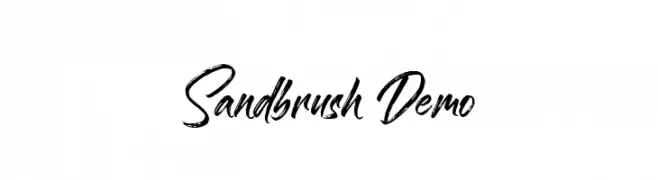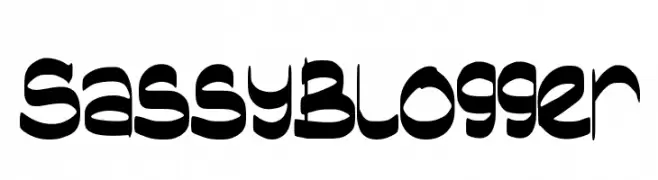
( Typia Nesia - www.myfonts.com/foundry/Typia_Nesia/ )
A bold, expressive brush-style font with dynamic strokes and artistic flair.
( Pisto Casero - Gilberto Moya Perona - www.pistocasero.com )
A geometric and modern font with decorative line elements.
( Southype - Rodrigo Gonzalez - www.southype.com )
A modern, geometric sans-serif font with uniform strokes and clear readability.
( Vinicius S - Vinicius Santos - www.behance.net/vinixbadad6 )
A playful, bold font with rounded edges and a hand-drawn style.
( Tama Putra - be.net/tmptr )
A cursive, handwritten-style font with elegant, flowing strokes.
( Ohab Tbj )
A bold, dynamic font with geometric forms and playful curves.
( Roland Huse Design - Roland Huse - rolandhuse.com )
A flowing, cursive script font with elegant, interconnected letters.
( Peter Olexa - www.dealjumbo.com )
A decorative grunge font with an inline grid pattern and sharp serifs.
( Solotype Studio )
A flowing, handwritten font with elegant uppercase and playful lowercase letters.
( Sean Bartlett - www.bartlettdigital.com )
A geometric, monospaced font with a modern, technical style.